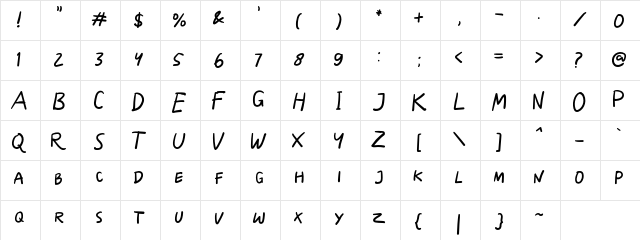
Skizzle Regular
| Foundry | Letterhend Studio |
| Designer | Letterhend Studio |
Design Context for Skizzle Typeface
Skizzle takes a measured approach to typography — its balanced proportions and neutral character make it a reliable workhorse for both digital and print work.